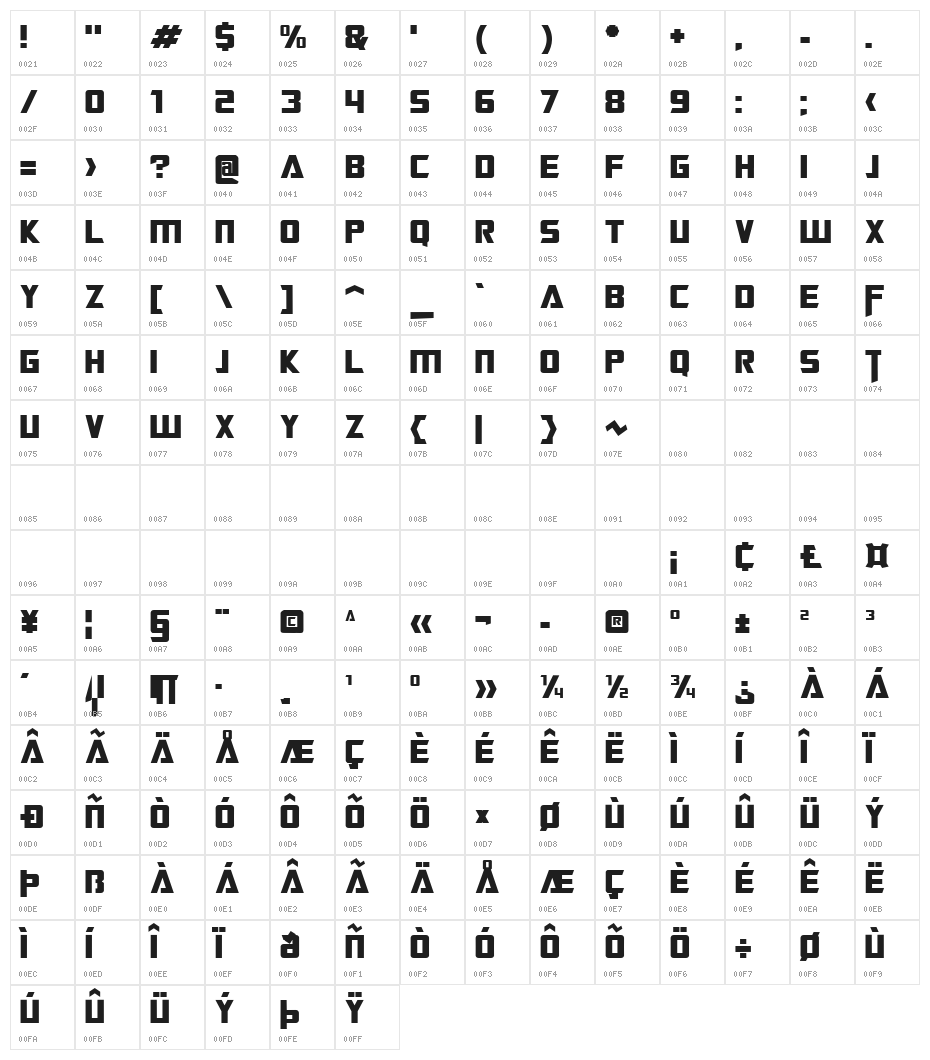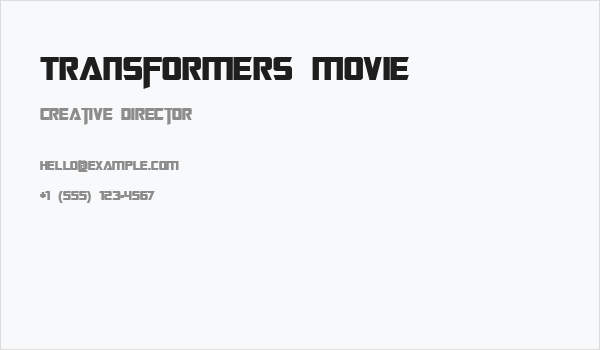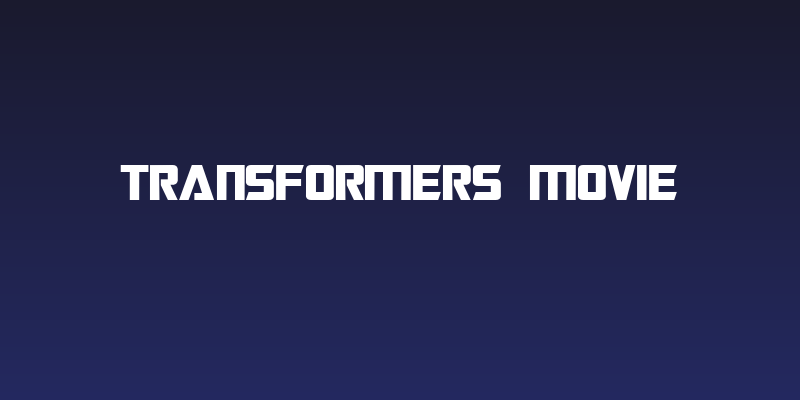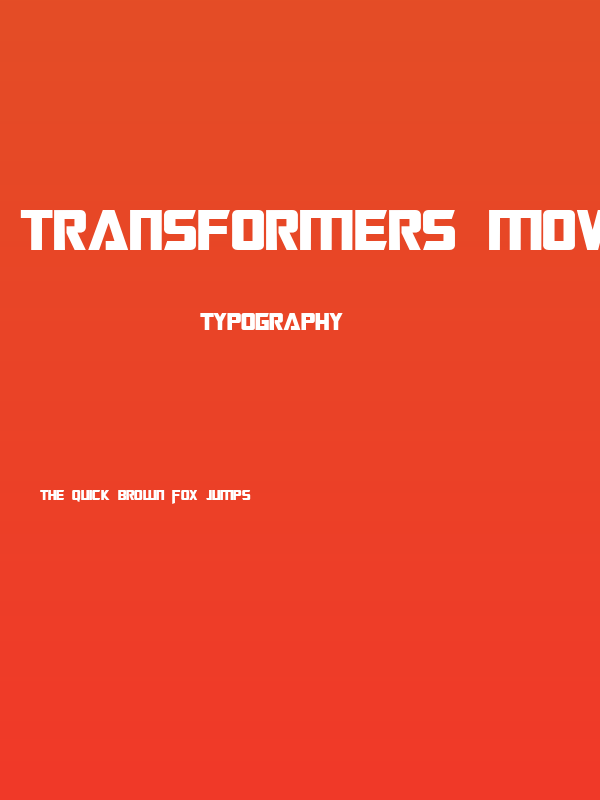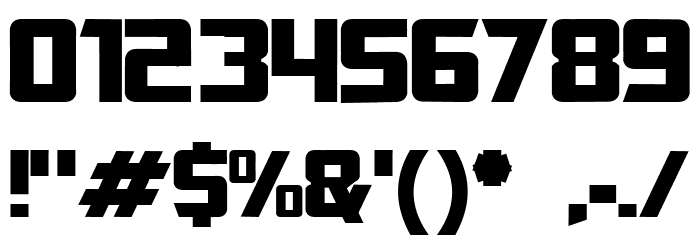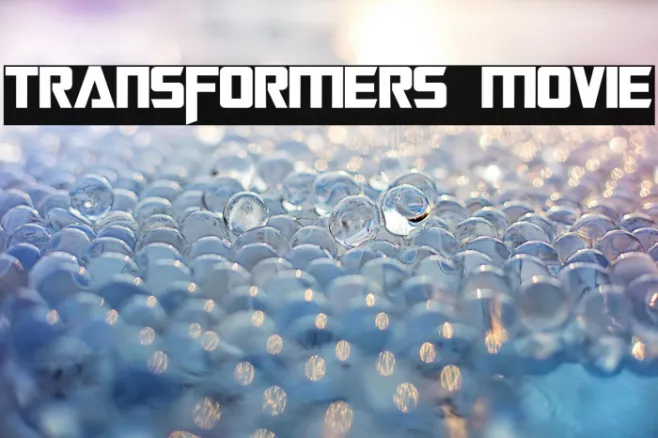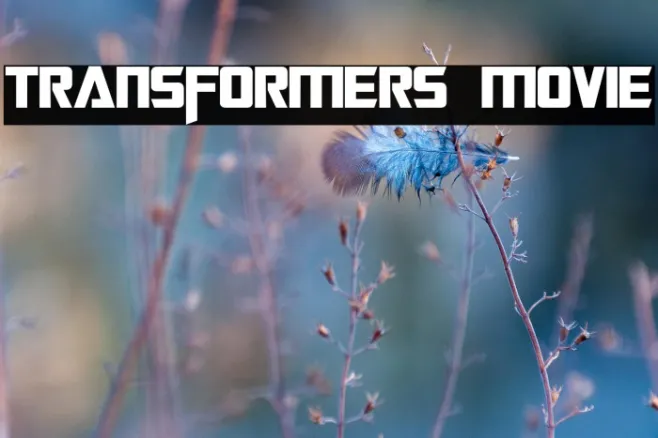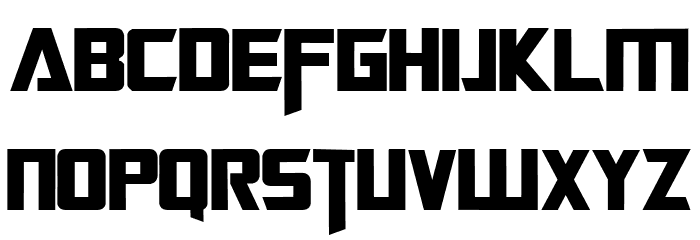
Transformers Movie Font
Transformers Movie Description
This font features a bold and angular design, reminiscent of futuristic and industrial themes. The characters are constructed with sharp edges and geometric shapes, giving it a strong and commanding presence. The uppercase letters are particularly striking, with a consistent height and width that convey a sense of uniformity and strength. The numbers and special characters follow the same design principles, ensuring a cohesive look across all elements. This font is ideal for projects that require a modern and edgy aesthetic, such as movie posters, video game titles, or branding for tech companies.